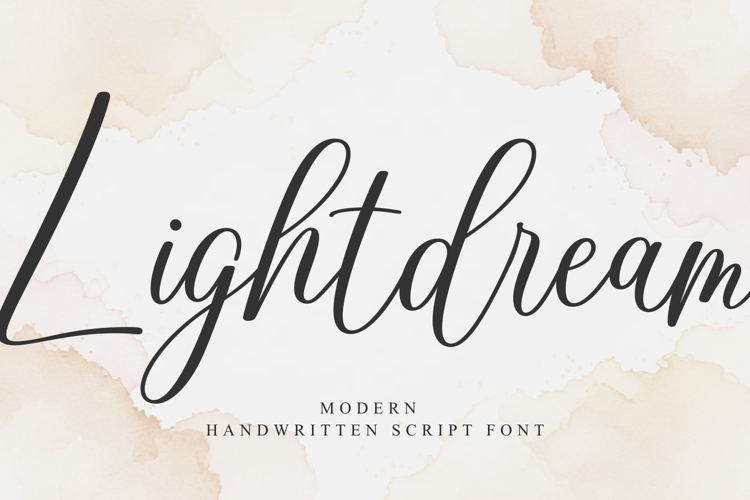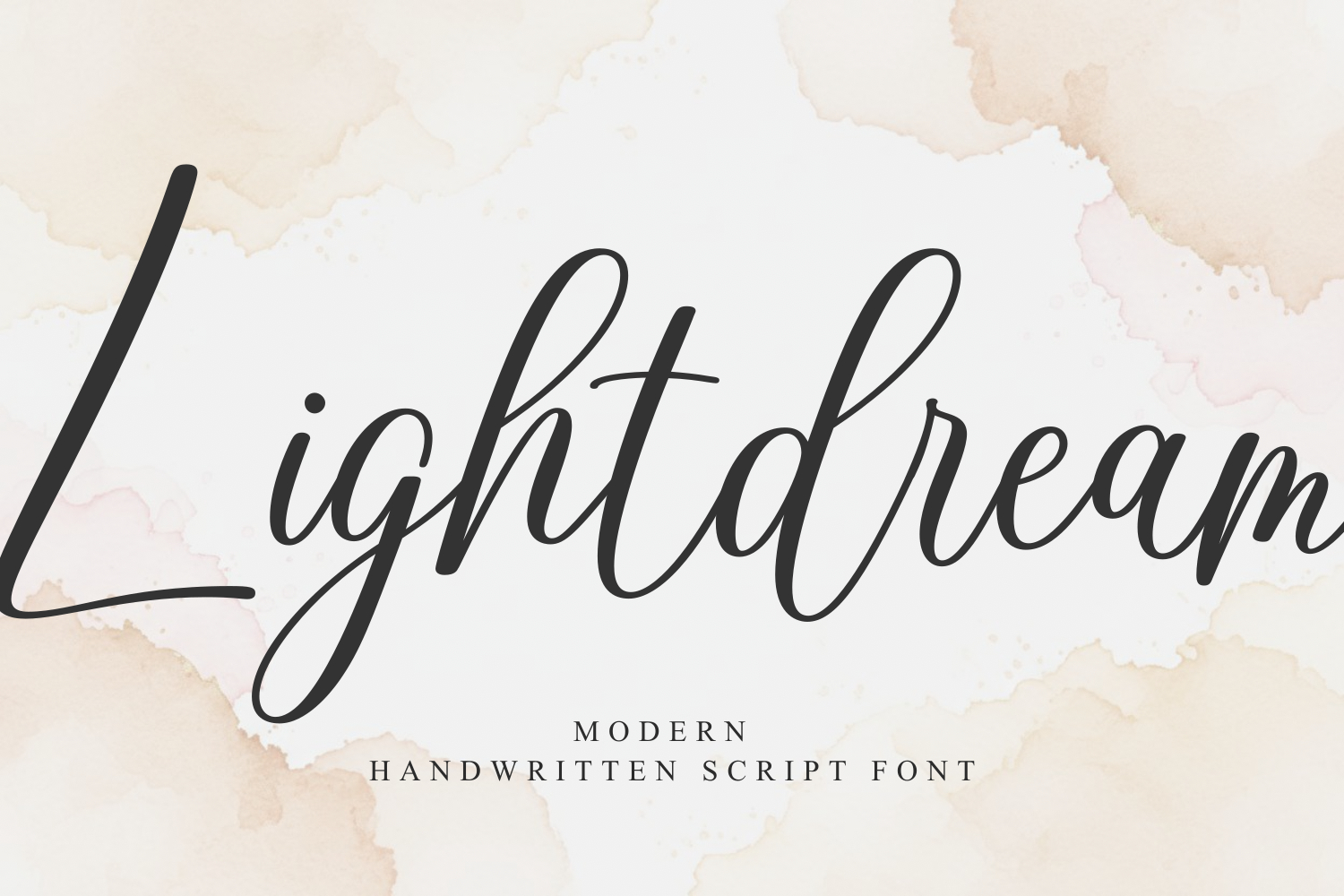
Lightdream
Lightdream is a modern handwritten script font with a clean, smooth, and elegant flow. Designed to feel natural and stylish, this font brings a soft yet confident personality to any creative project.
Perfect for branding, logos, wedding invitations, social media posts, packaging, quotes, and fashion-related designs. Its balanced strokes and graceful curves make Lightdream easy to read while keeping a beautiful handwritten touch.
Whether you’re creating minimalist designs or romantic visuals, Lightdream adds a warm and modern handwritten feel that elevates your work effortlessly. This font is PUA encoded which means you can access all glyphs and swashes with ease!